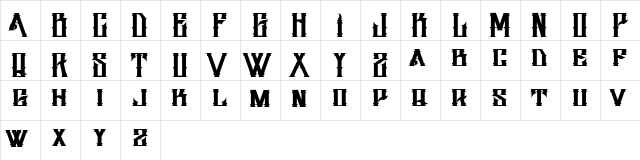
H74 Dirty Sanchez Regular
Design Context for H74 Dirty Sanchez Typeface
H74 Dirty Sanchez is a composed and adaptable typeface that performs quietly and consistently across a wide range of design contexts.